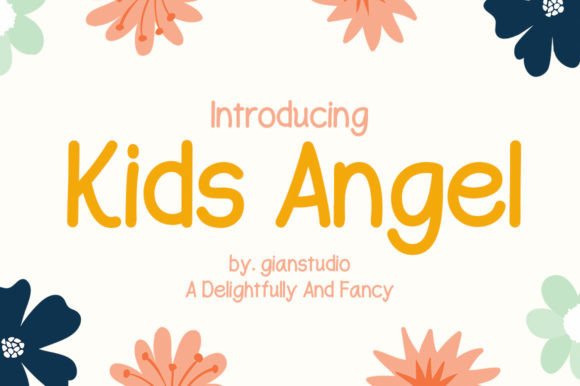
Introducing the Kids Angel Font, the ultimate choice for captivating and engaging design projects. Crafted by the talented gianstudio12, this extraordinary font is perfect for those seeking the best font for magazine design. Dive into a world of creative possibilities as Kids Angel combines the charm of children's handwriting with a modern twist.
With its unique hand-drawn style, Kids Angel Font adds a touch of warmth and playfulness to any design. Whether you're working on a logo, notes, posters, t-shirts, stickers, mugs, labels, or any other creative endeavor, this font is your secret weapon for creating eye-catching and memorable designs.
What sets Kids Angel apart is its ligature alternative, giving you even more options to elevate your design game. With just a click, you can unlock a plethora of amazing glyphs and ligatures, allowing your creativity to soar to new heights. Say goodbye to limitations and hello to limitless possibilities.
But that's not all – Kids Angel Font is PUA encoded, meaning you have seamless access to all its amazing features. No more struggling to find the right character or symbol. Everything you need is right at your fingertips, making your design process smooth and effortless.
Let your imagination run wild as you unleash the power of Kids Angel Font. Whether you're designing for magazines, websites, advertisements, or any other medium, this font will effortlessly captivate your audience. It's time to leave a lasting impression and stand out from the crowd.
Embrace the magic of Kids Angel Font and watch your designs come to life with a touch of whimsy and elegance. Elevate your projects and create a visual journey that resonates with your audience. Experience the joy of designing with a font that truly understands the essence of creativity.